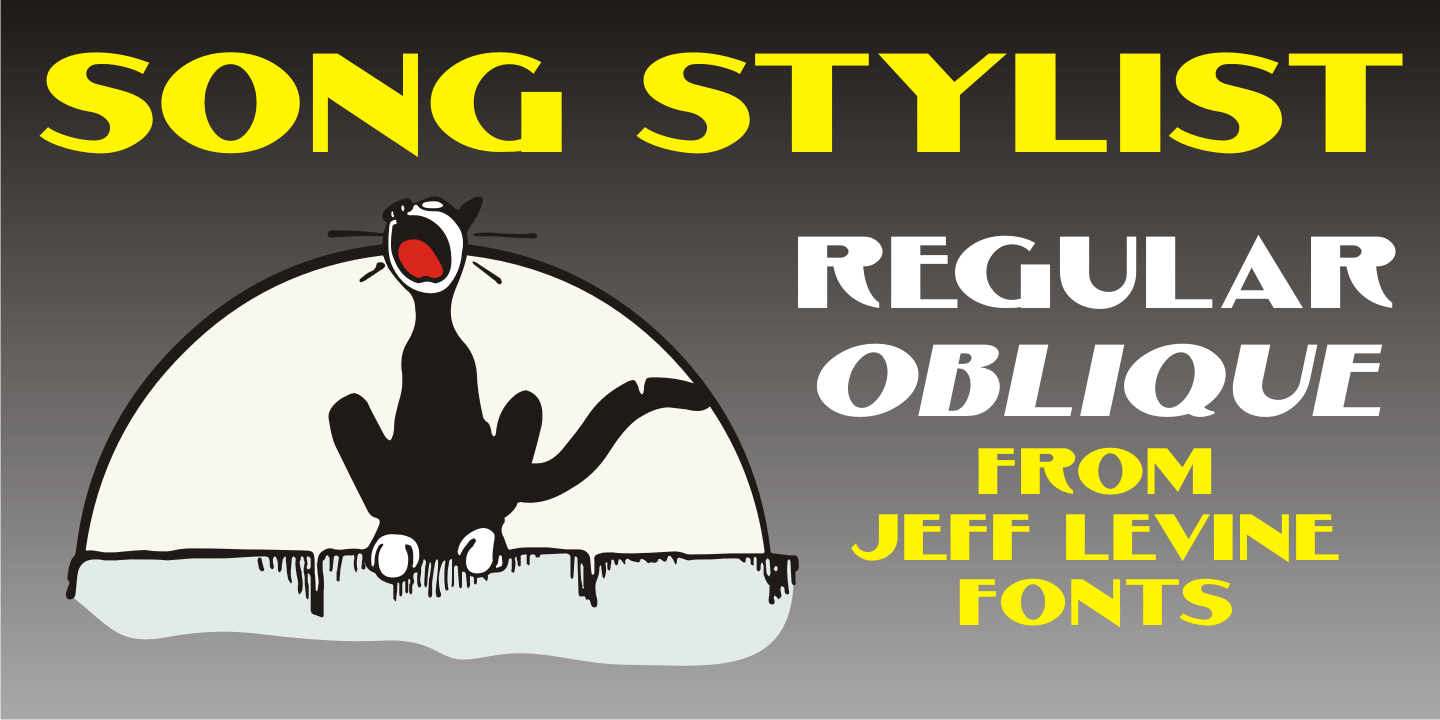
Song Stylist
The 1907 novelty song 'Since Arrah Wanna Married Barney Carney' (about an Irishman taking an Indian maiden as his bride) had its title hand-lettered in a sans serif style that reflected both the Art Nouveau flavor of the time and a hint of what was to come during the Art Deco movement.
This is now Song Stylist and it's oblique counterpart.